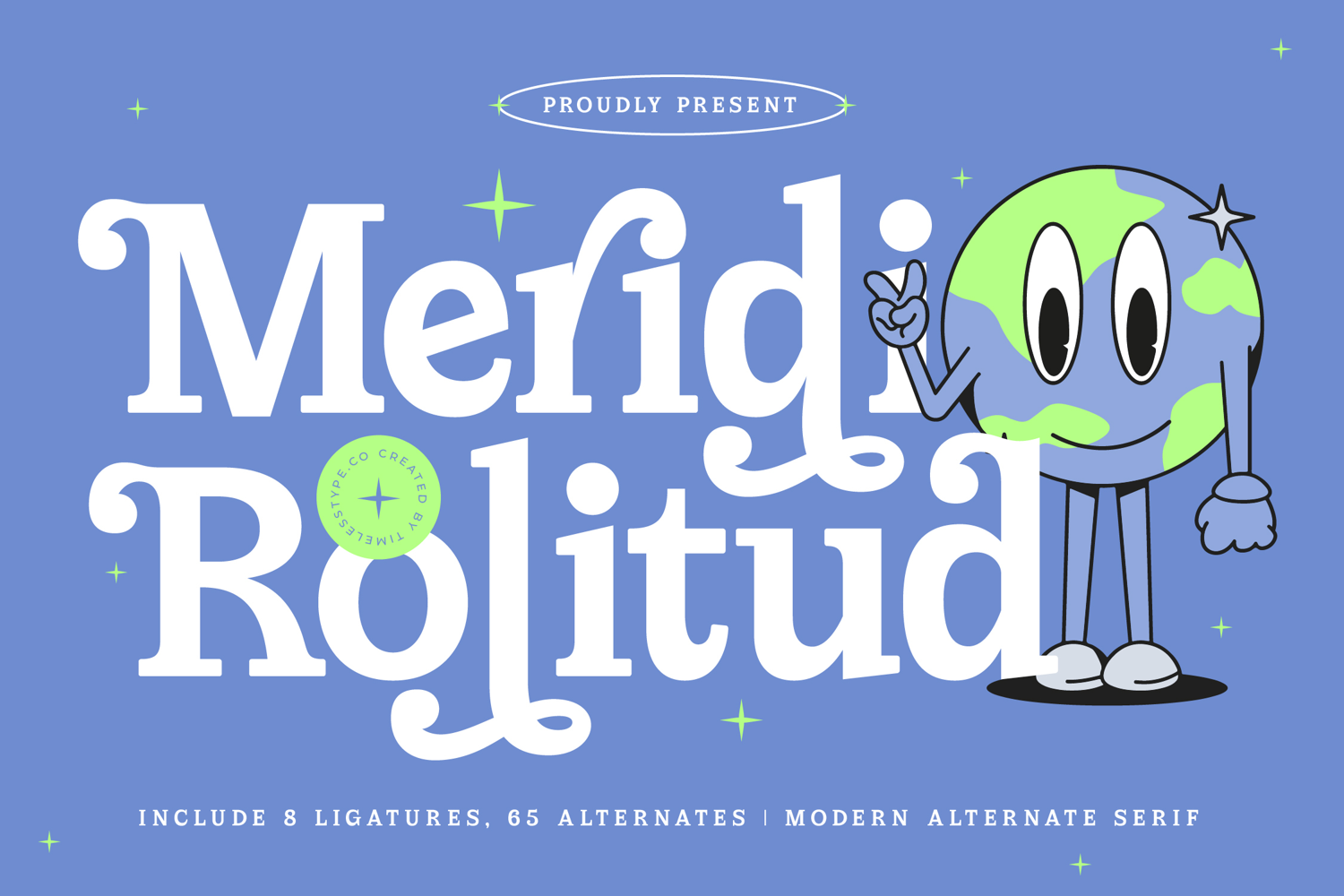
Meridi Rolitud - Modern Alternate Serif
Meridi Rolitud
Meridi Rolitud Italic
Meridi Rolitud - Modern Alternate Serif
Meridi Rolitud is a modern alternate serif font that blends bold presence with playful decorative detail. Its strong letterforms, curved serifs, and dynamic alternates give it a character that feels expressive, stylish, and versatile. With 8 ligatures and 65 alternates, this typeface gives designers the flexibility to create unique, eye-catching typography that stands out in both print and digital formats.